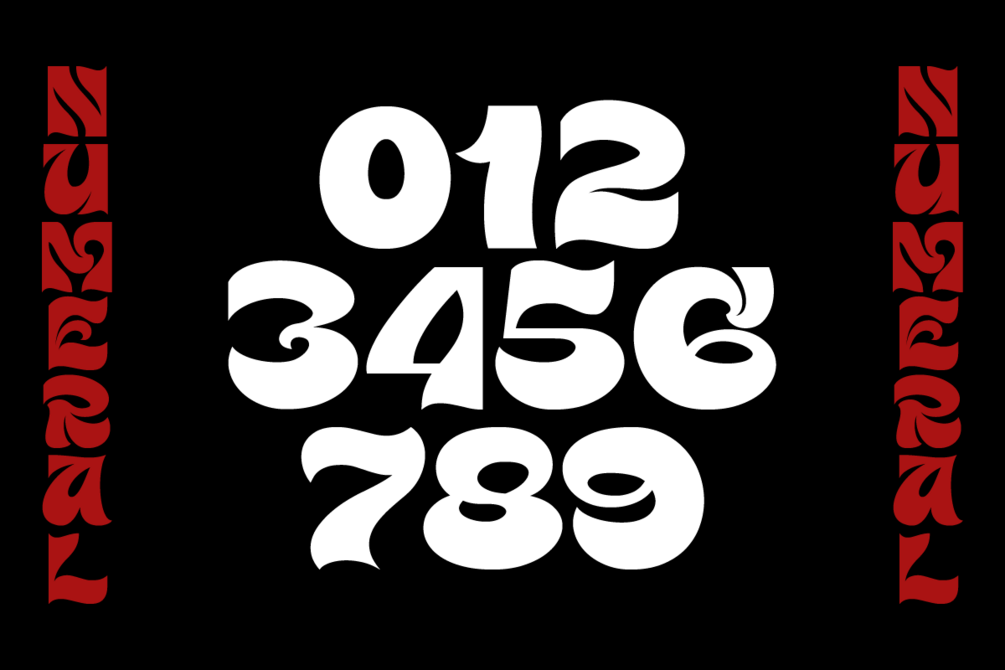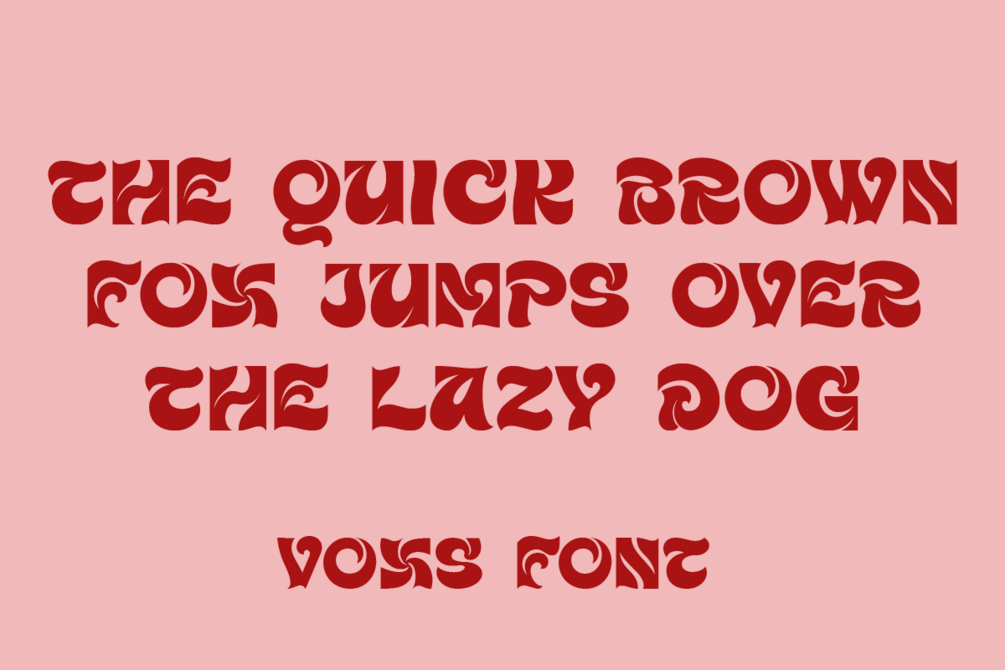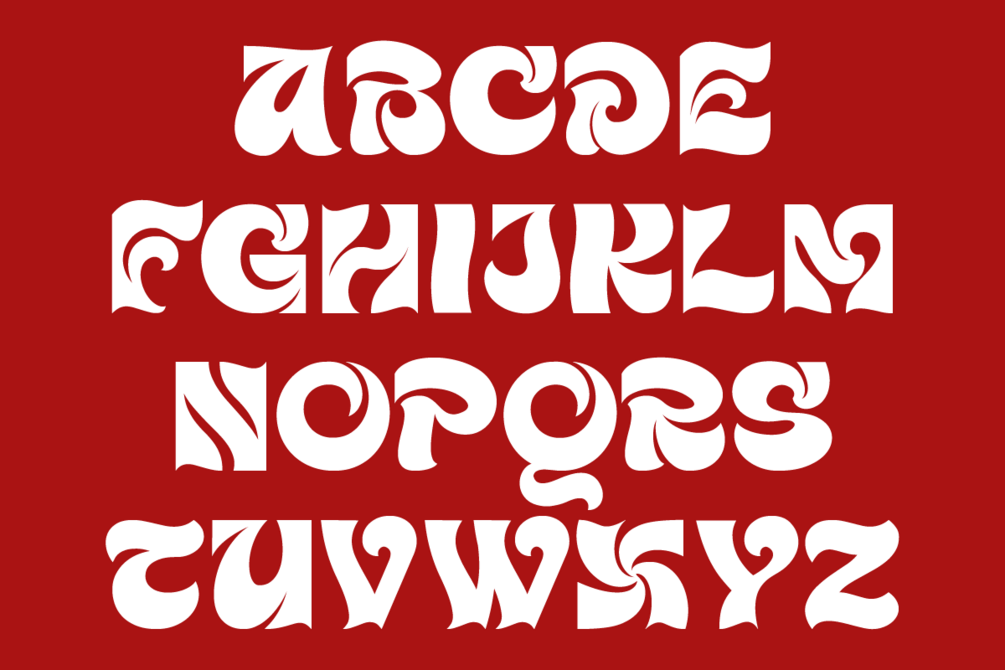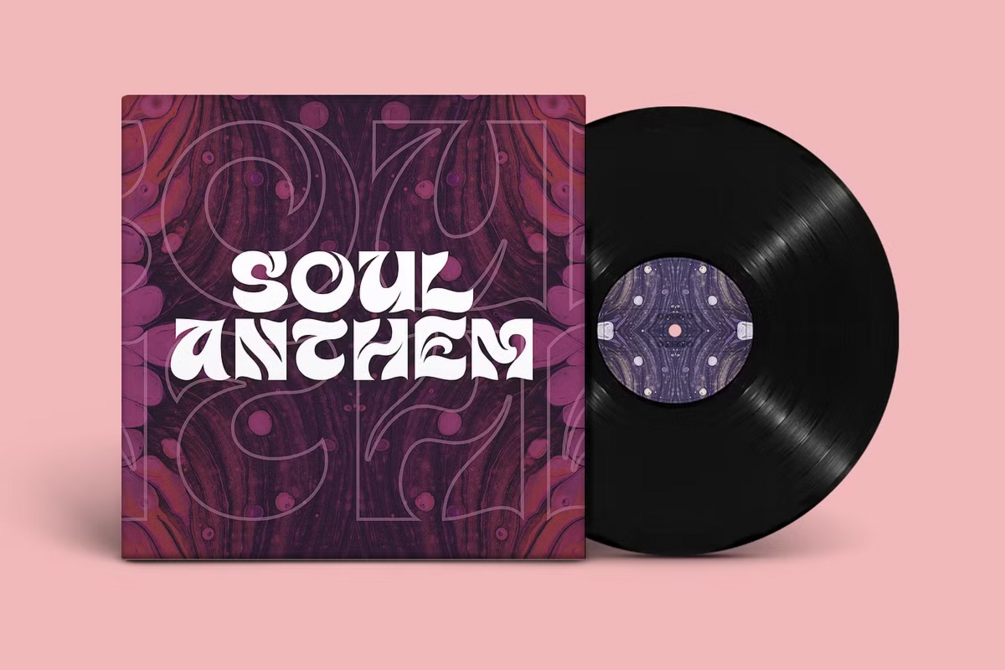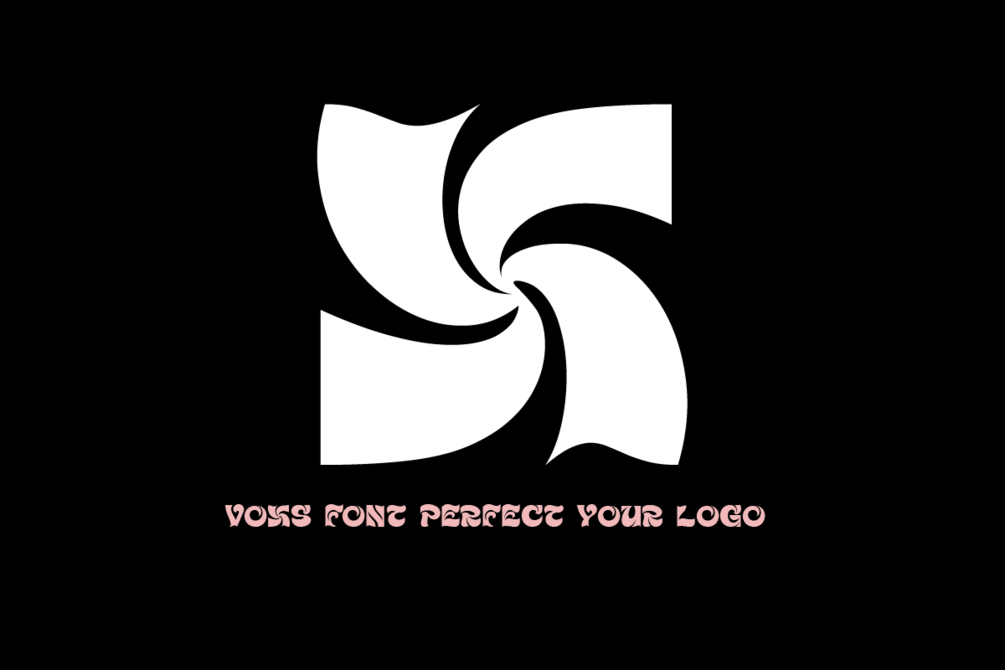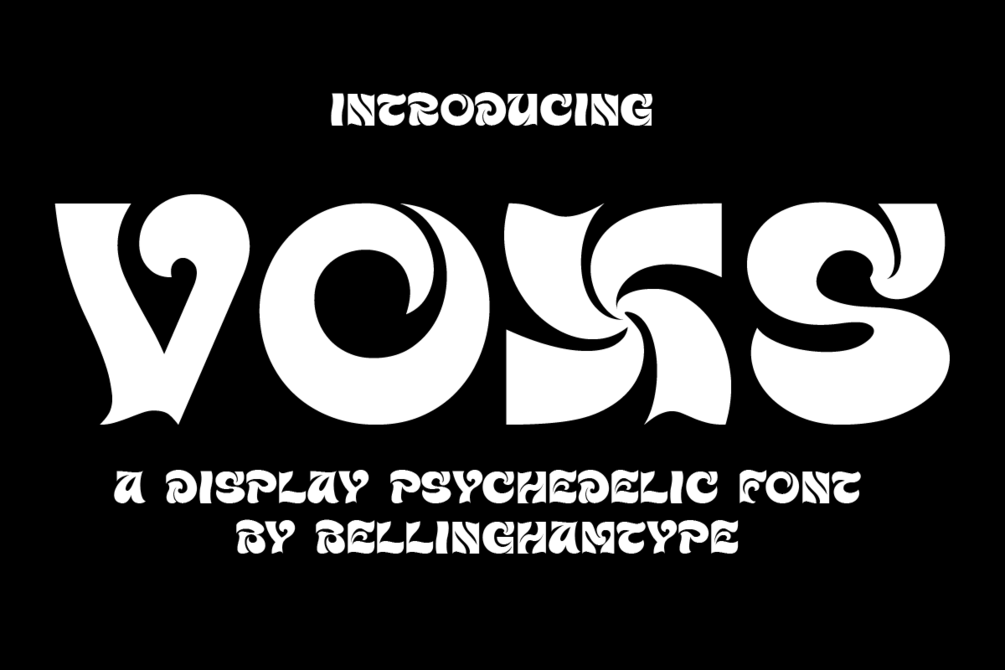
Voxs Psychedelic Display Font
Step into the vibrant world of Voxs — a bold psychedelic display font inspired by retro 70s poster art and experimental letterforms. With its swirling shapes and hypnotic curves, Voxs brings energy, rhythm, and creativity to your designs. Perfect for music covers, festival posters, vintage branding, and bold artistic projects, this typeface transforms ordinary text into unforgettable visual art. Let your words dance with Voxs — where typography meets pure psychedelic expression.